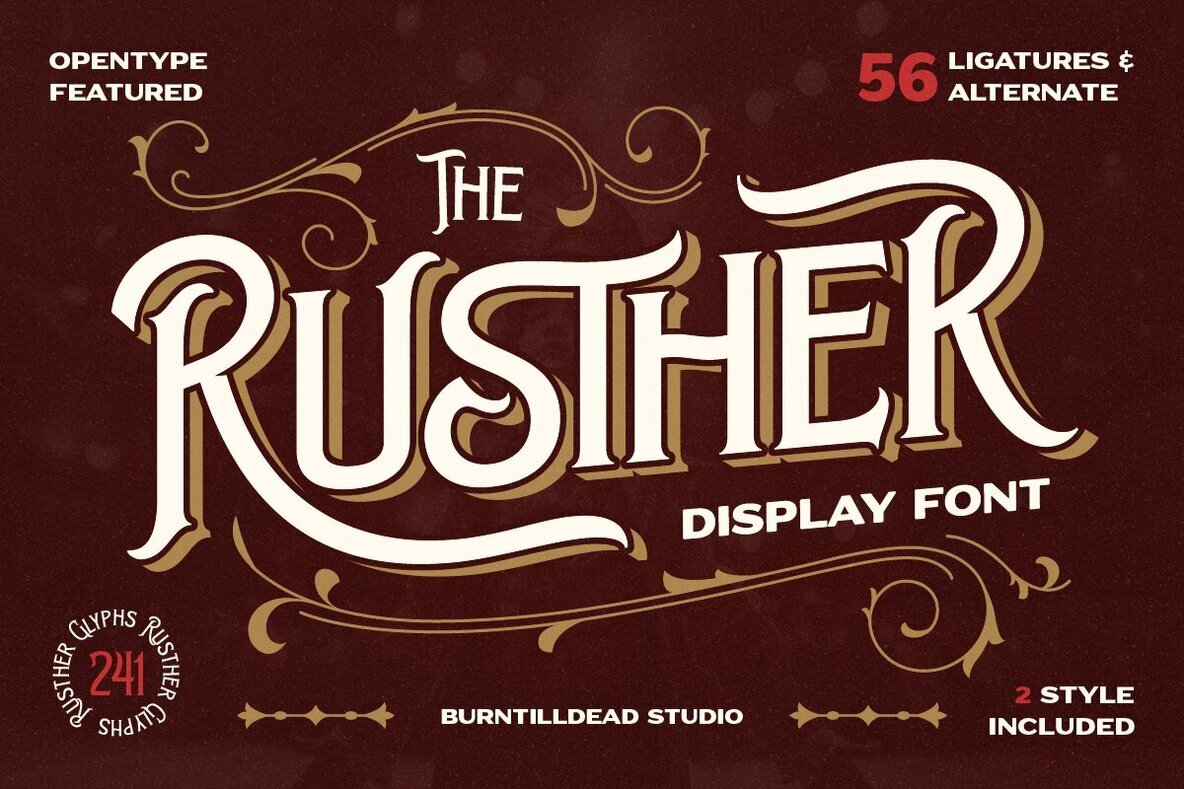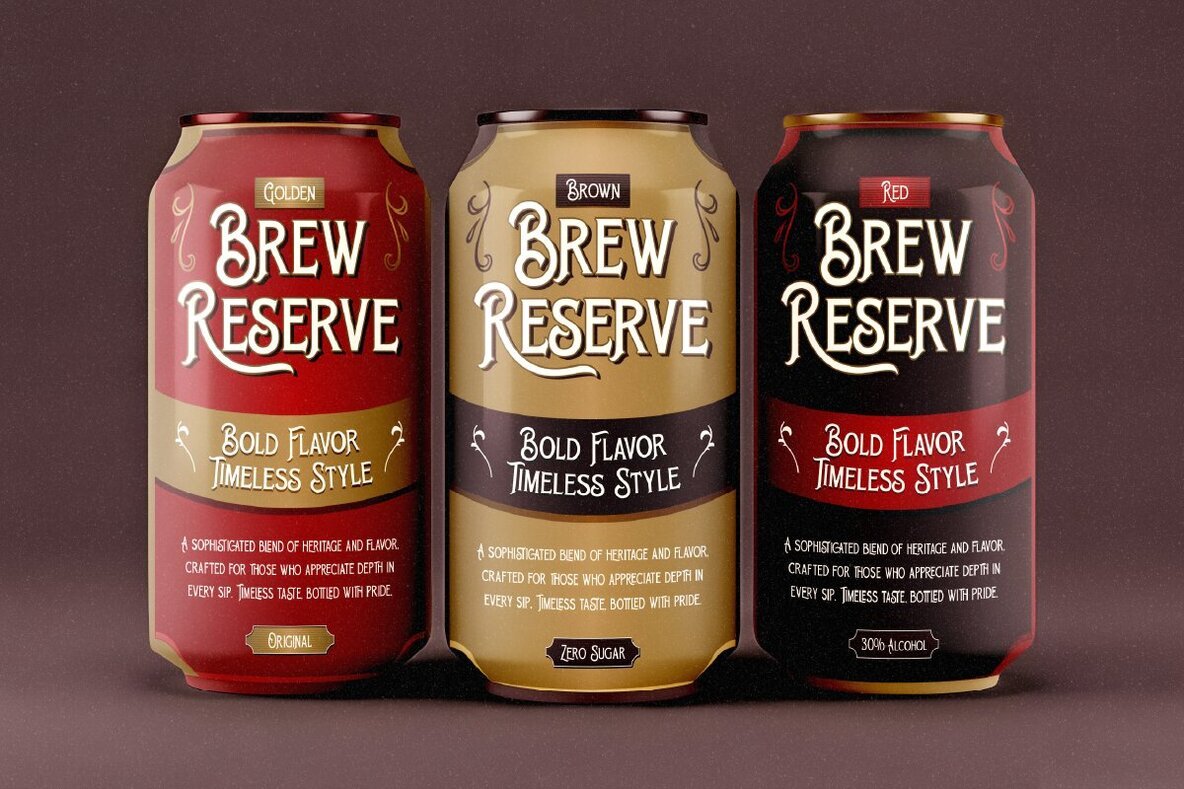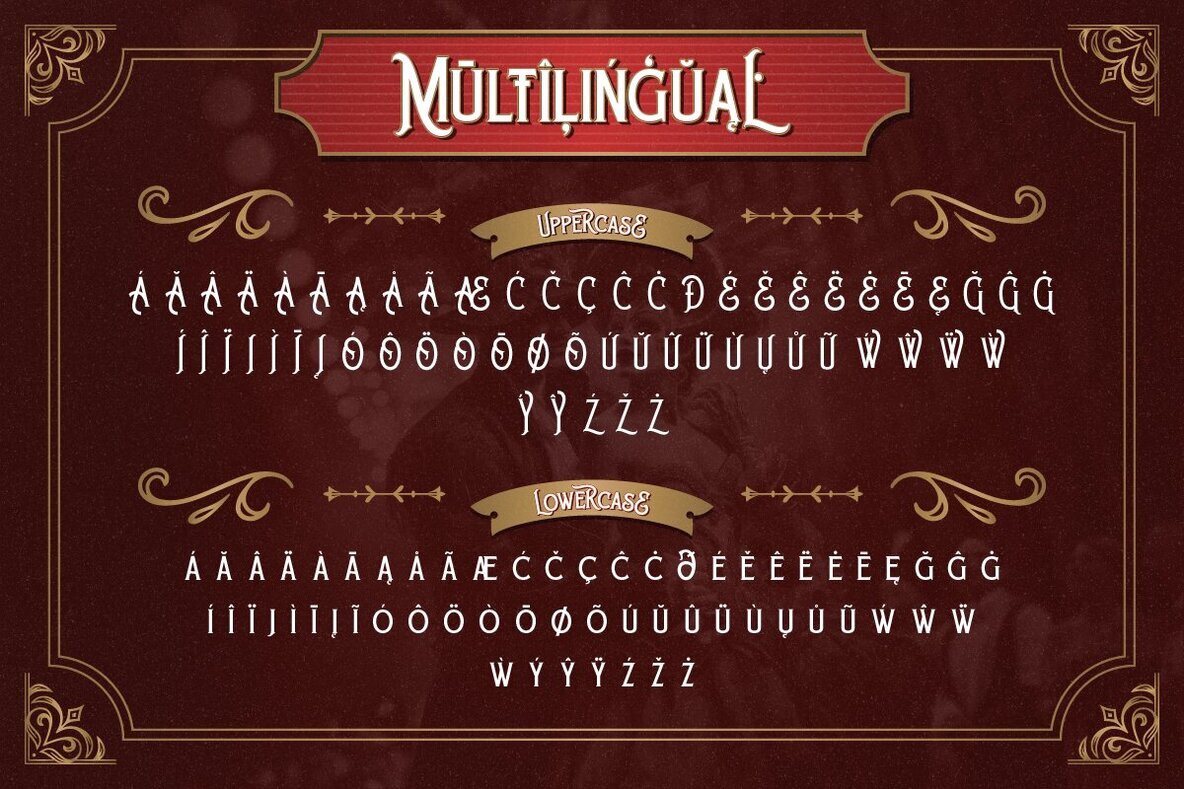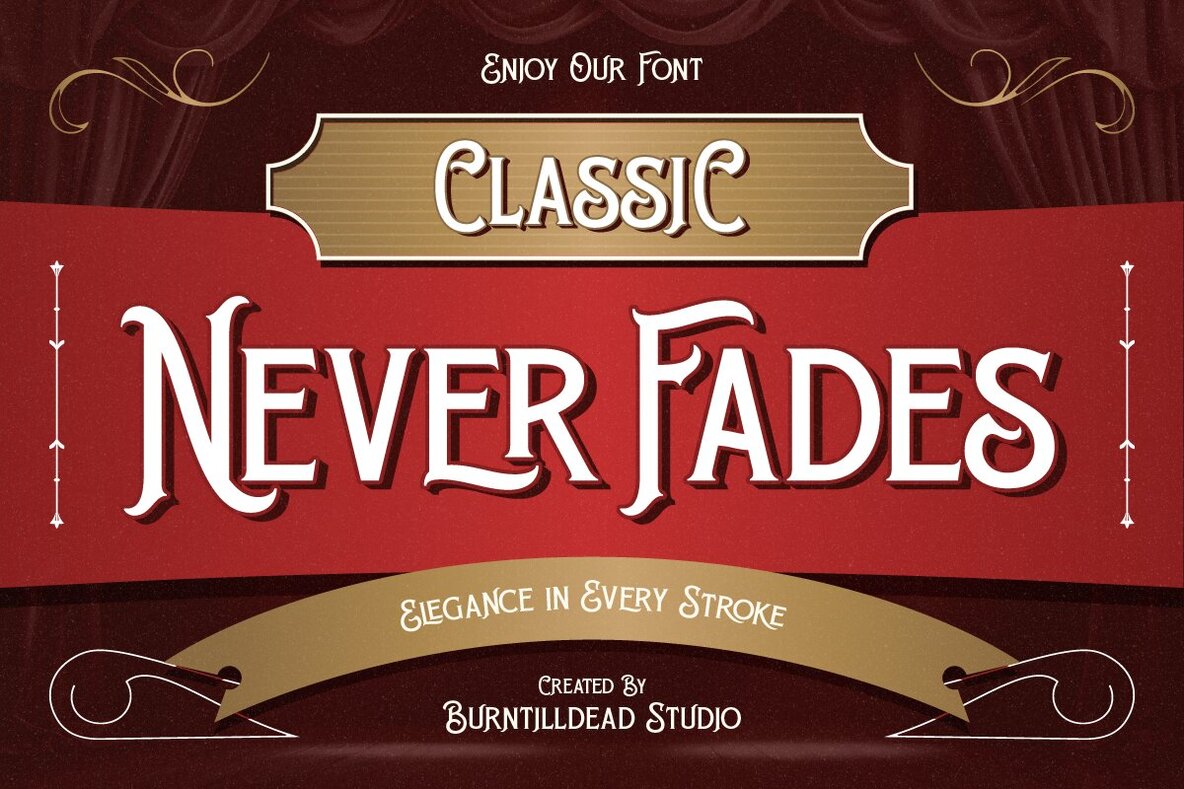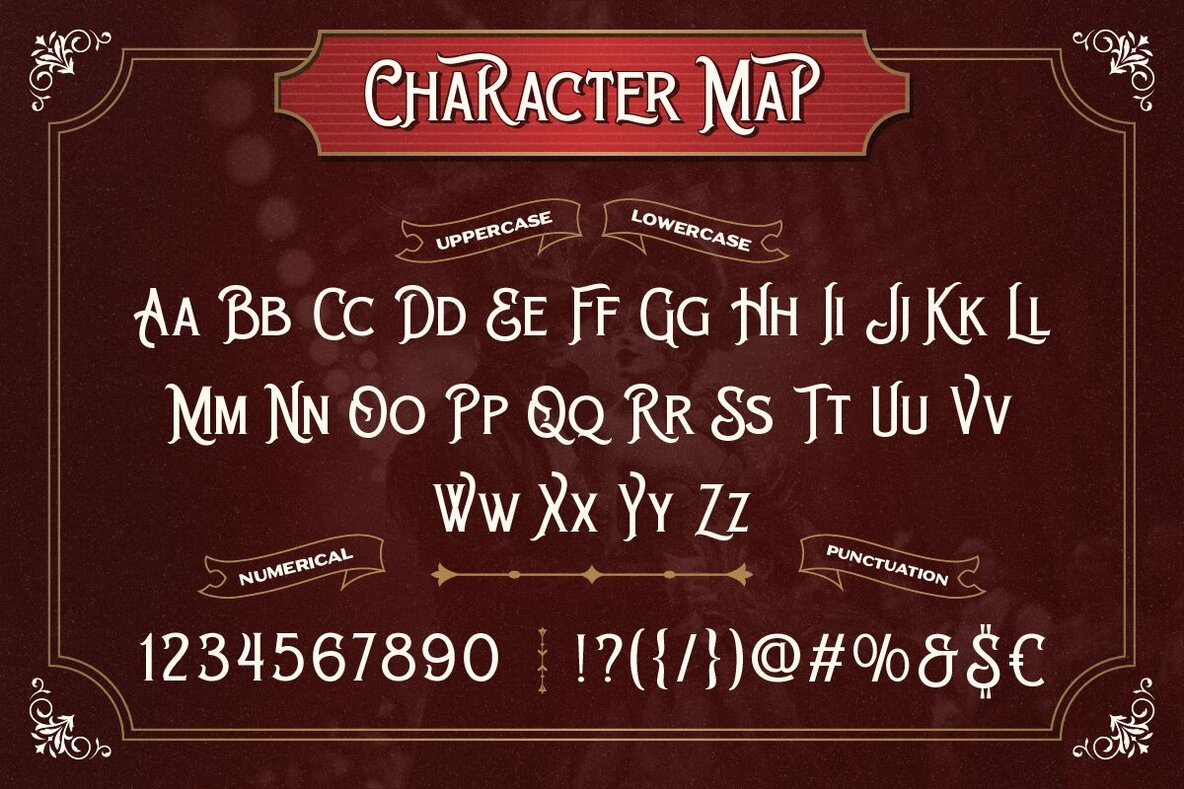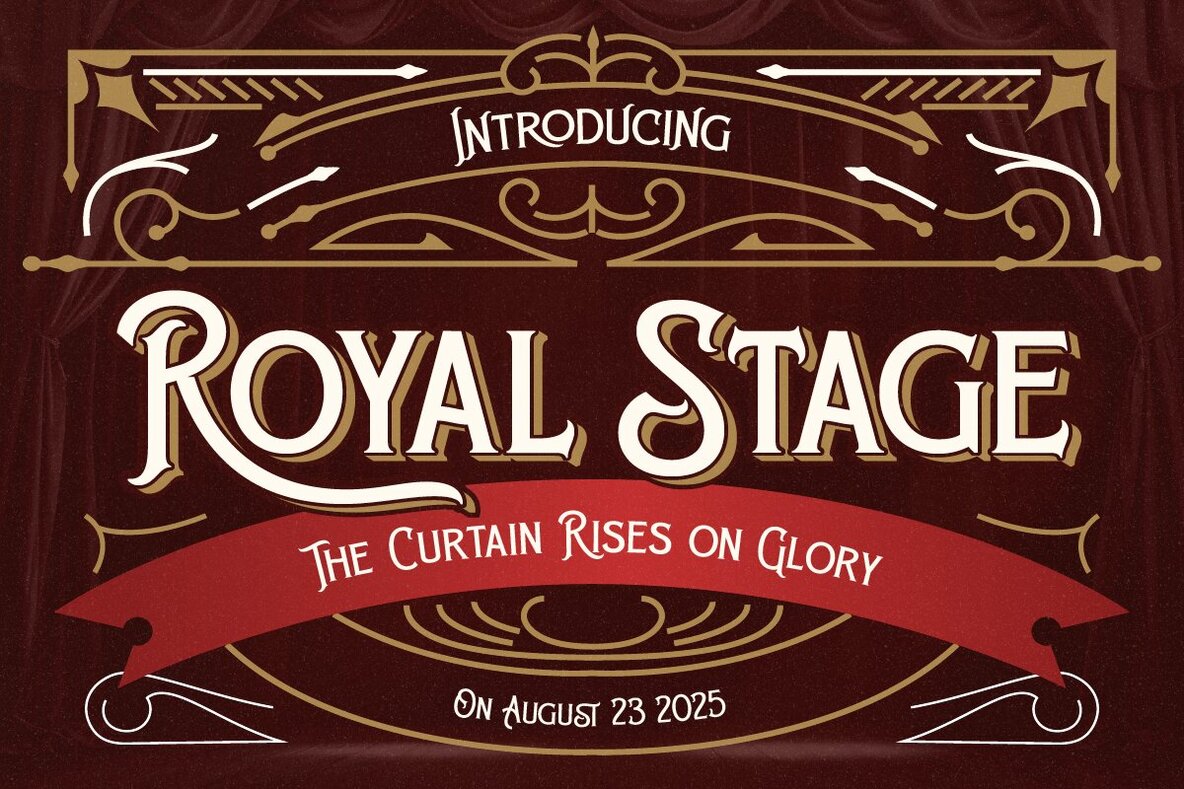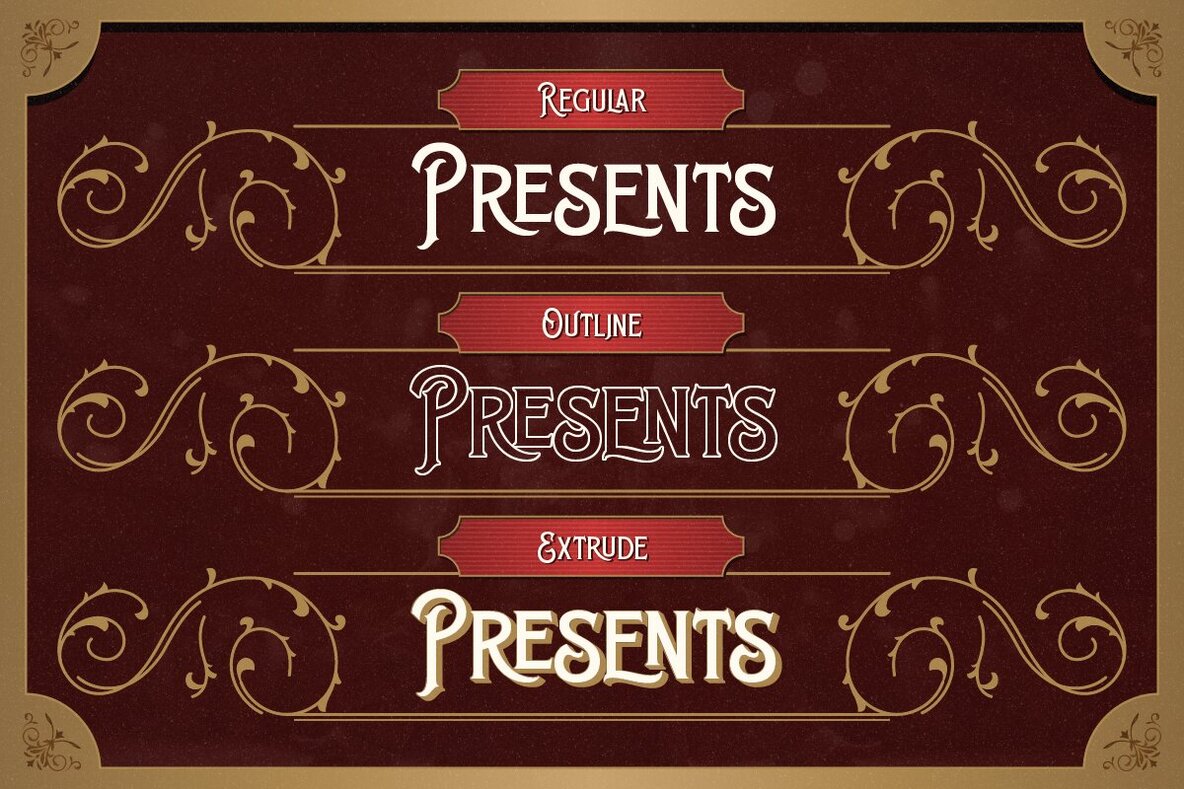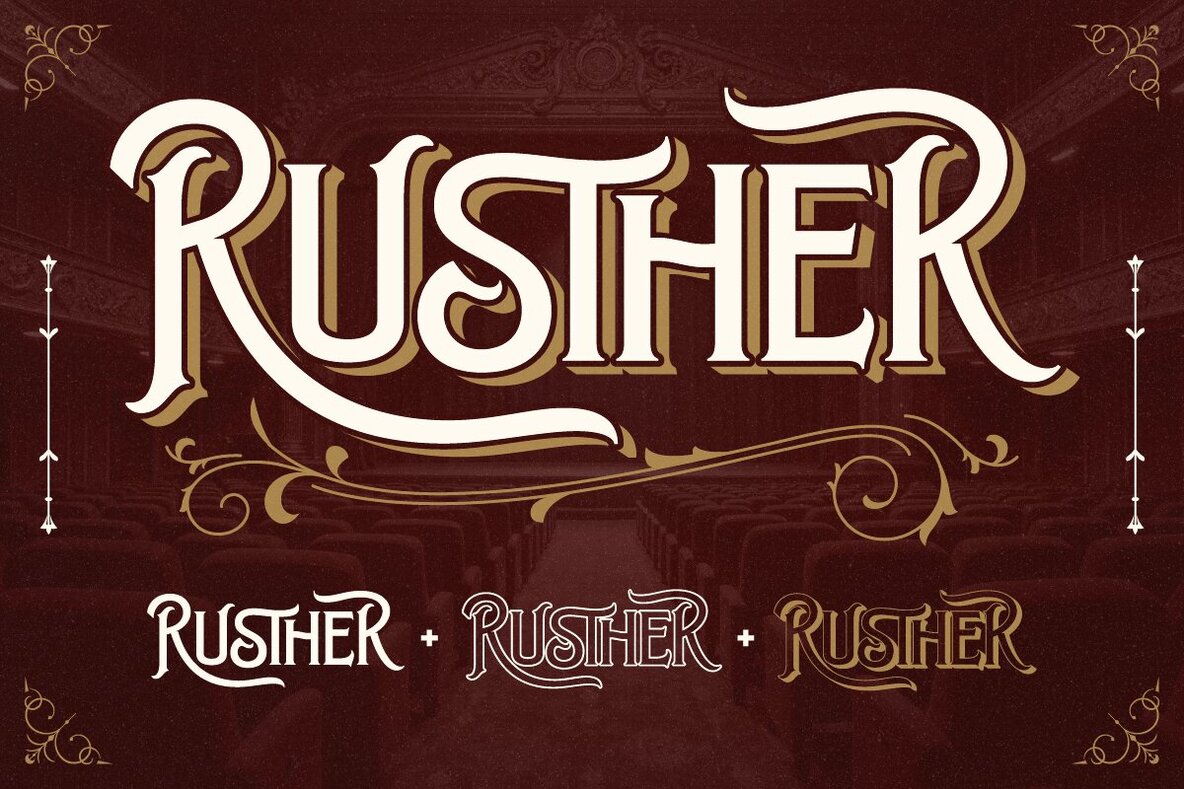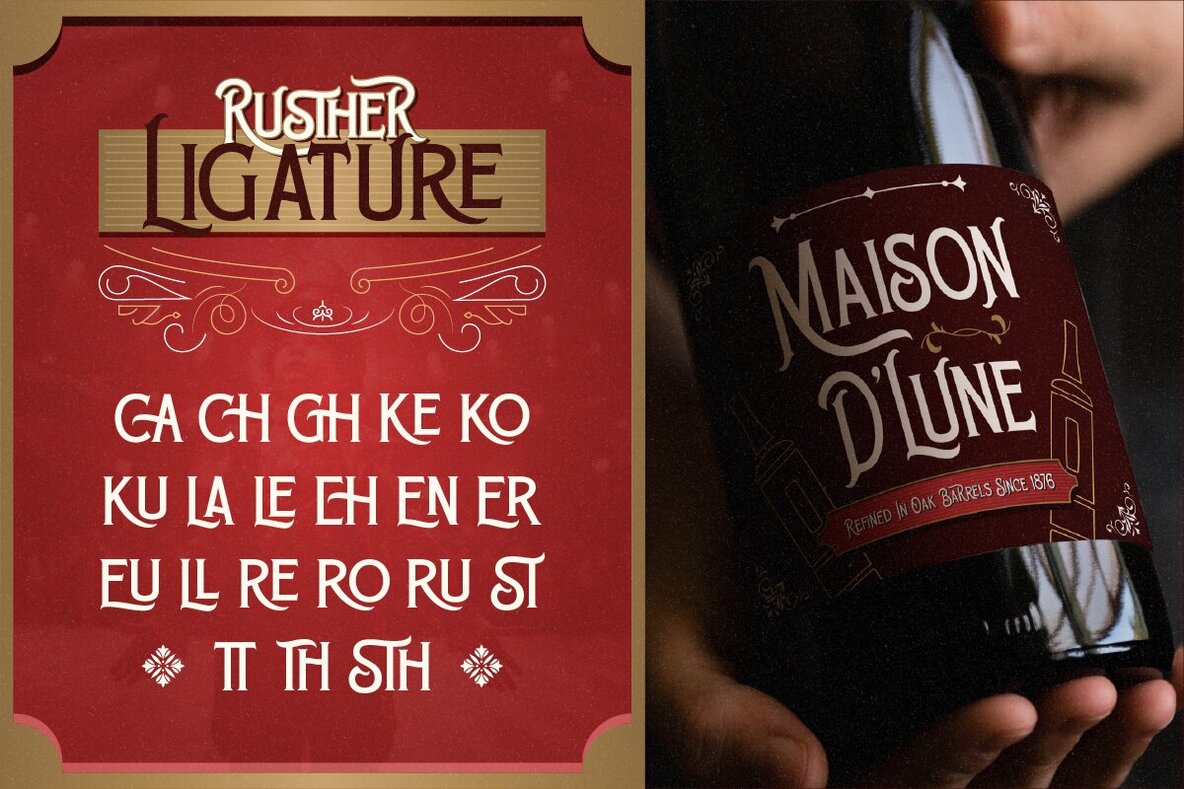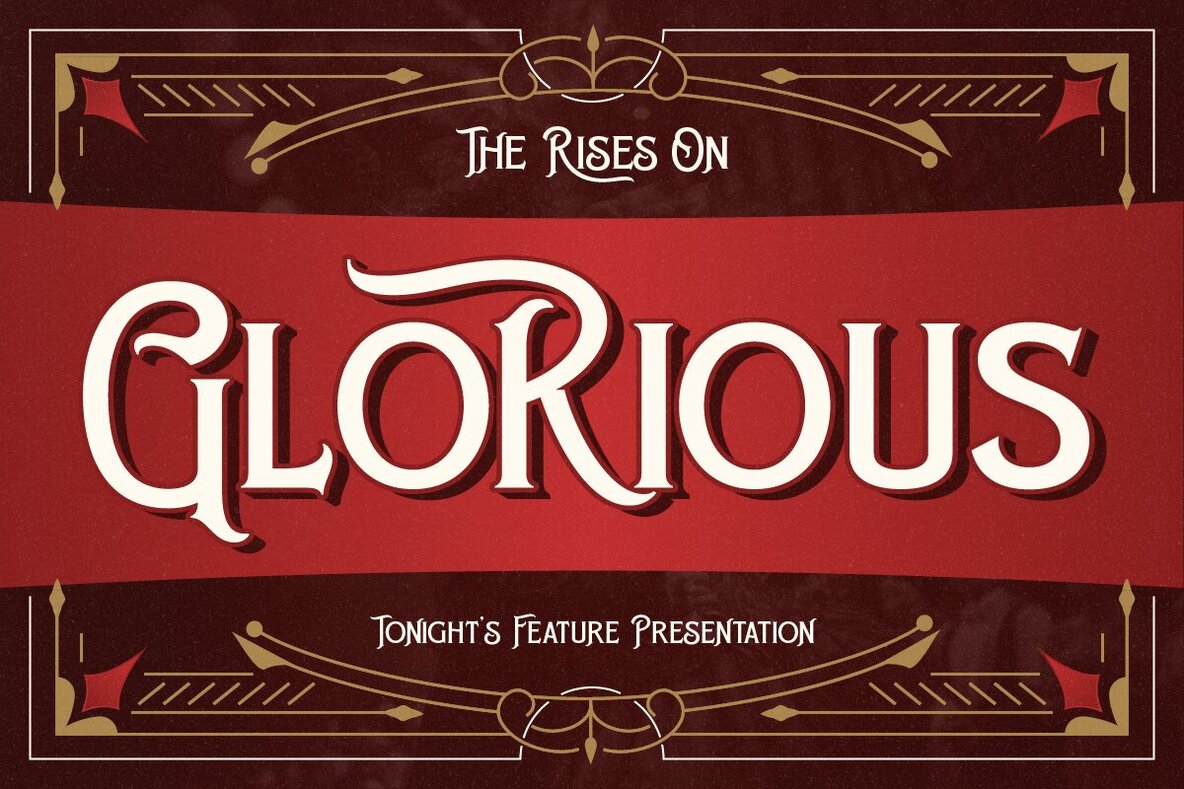
Rusther Font
Rusther Regular
Rusther Extrude
Rusther Outline
Rusther offers a bold display typeface imbued with a touch of class. Drawing inspiration from vintage lettering with subtle Victorian influences, this font brings both drama and elegance to any project without excess. The stylish ligatures, clean curves, and ornamental details make Rusther perfect for posters, wine labels, logos, and any design that requires a timeless, stage-ready appearance. For those seeking retro sophistication, the charm of old theaters, or modern vintage branding, Rusther adds a simple Victorian flair that makes designs shine. Features:Rusther: A Bold Display Font with Victorian Flair